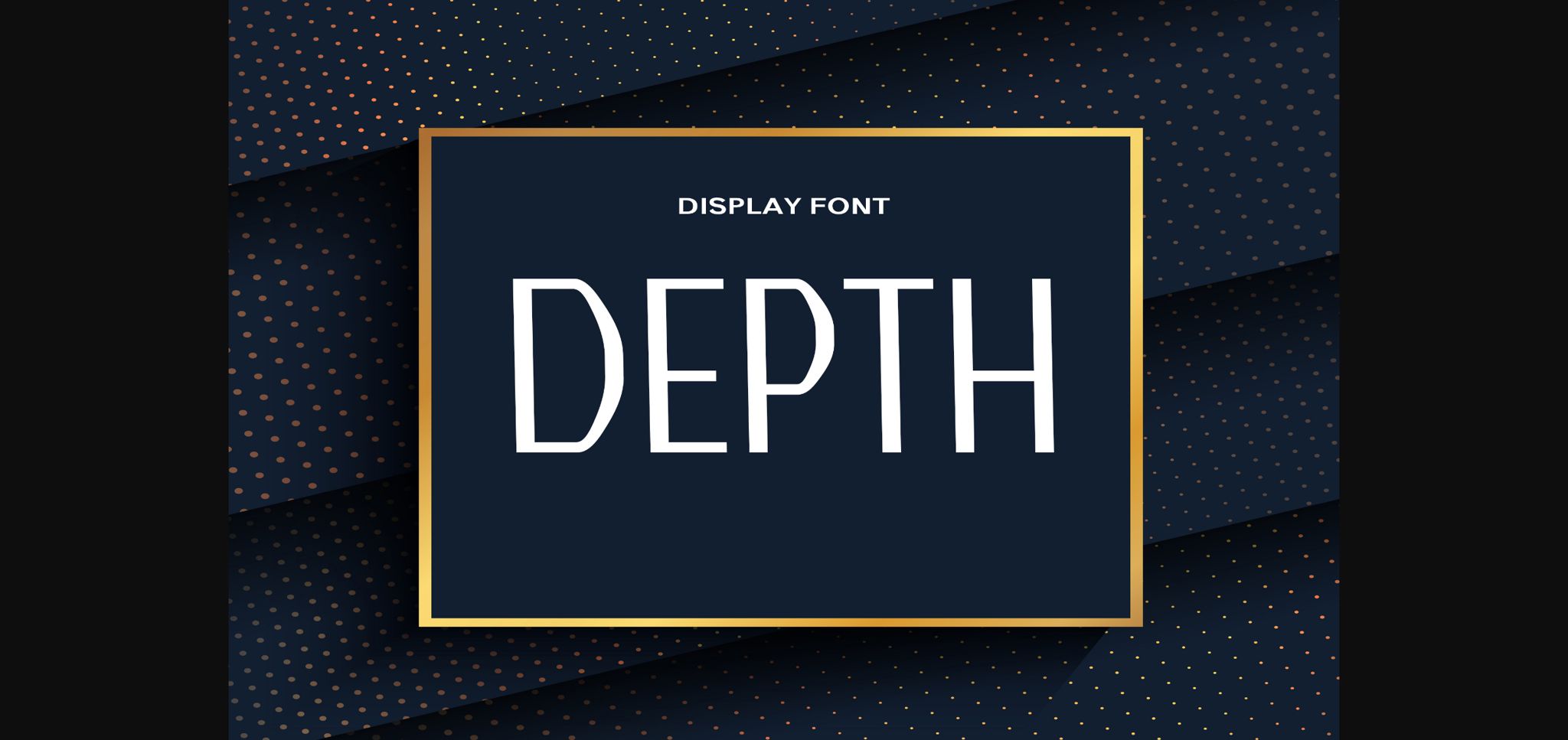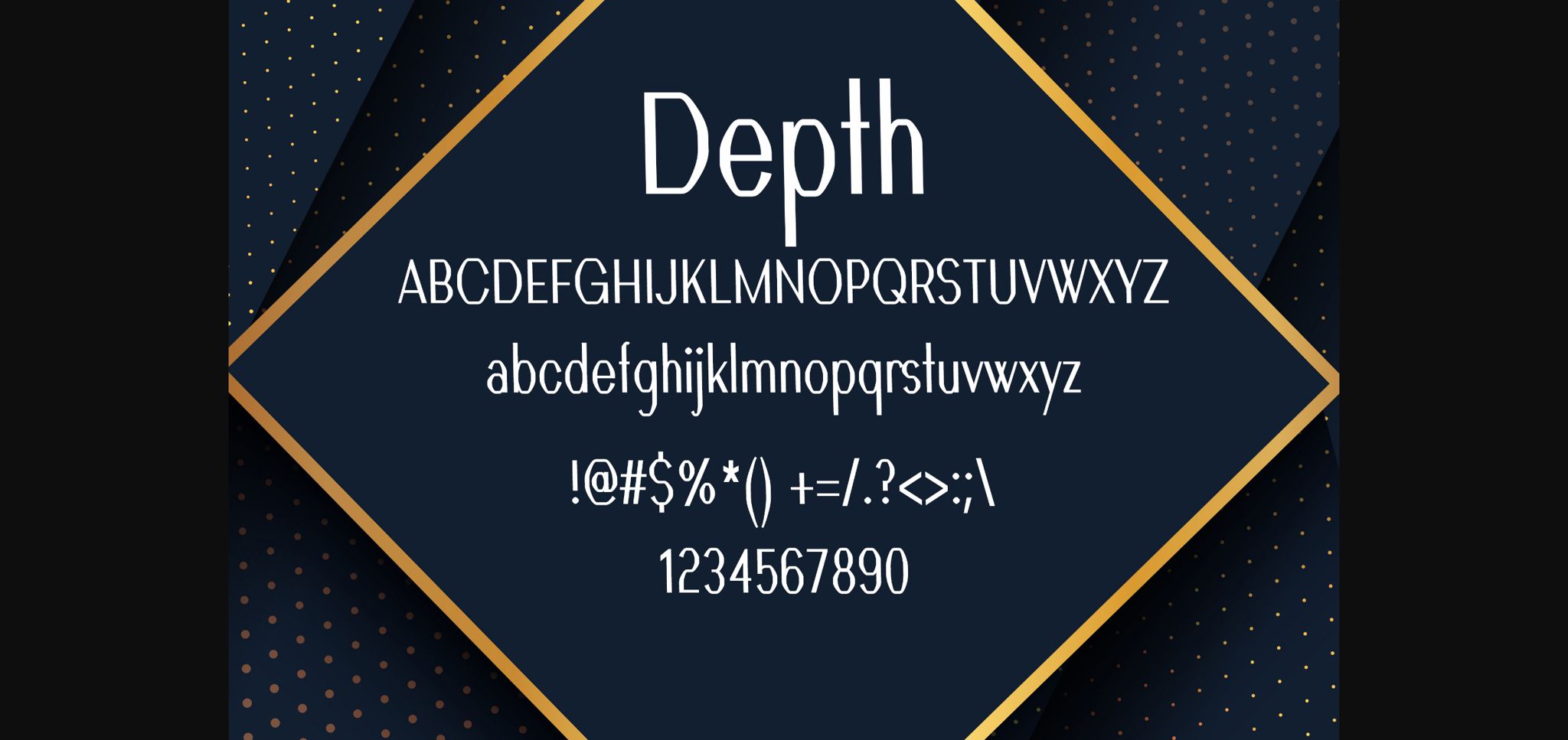
Depth Font
About Depth Font
Depth is a casual and modern sans serif font. Fall in love with its incredibly versatile style and use it to create spectacular designs!